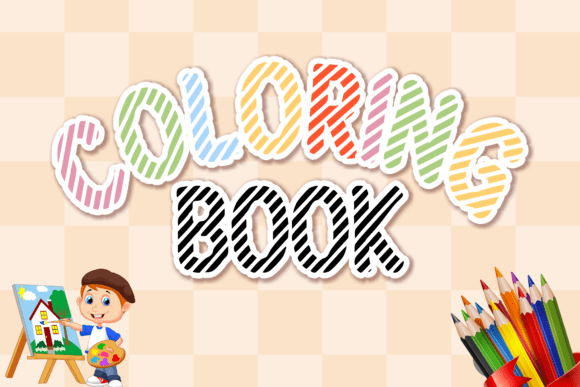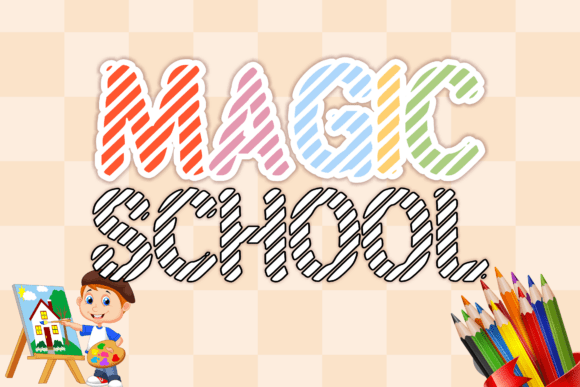
Unleash Your Creativity with the Kids Craft Font
Do you remember the feeling of rummaging through a box of crayons, markers, and paints as a child, eager to bring your imagination to life? The thrill of creating something entirely new and unique was exhilarating. As a designer, you can recapture that same sense of wonder and excitement with the Kids Craft Font.
This charming font is designed to add a playful touch to your projects, with its striped style and vibrant colors. Whether you’re working on a children’s book, a product label, or a t-shirt design, the Kids Craft Font offers endless possibilities for creativity and self-expression. Its versatility and aesthetic appeal make it a valuable addition to any designer’s toolkit, allowing you to add a pop of color and whimsy to your designs.
Kids Craft Font Key Features
- Unique Characteristics: The Kids Craft Font is designed to resemble children’s handwriting, making it perfect for educational materials, kids’ books, and other projects that require a playful, informal feel.
- Stylistic Sets: Includes a range of stylistic sets that allow designers to add extra flair and personality to their text, such as swashes, flourishes, and alternate letterforms.
Designer Review: Kids Craft Font
Overall, I think the Kids Craft Font is a sweet addition to any designer’s toolkit. Here’s what I like about it:
- ✨ The font has a playful, hand-drawn feel that’s perfect for children’s books, educational materials, and other projects that require a lighthearted tone.
- ✨ The font is highly customizable, with a range of weights and styles to choose from, making it easy to adapt to different design needs.
- ✨ The font is well-behaved and easy to use, with a consistent spacing and letterform design that makes it a joy to work with.
- ⚠️ The font may not be suitable for formal or professional projects, as its playful feel may come across as unprofessional or immature.
- ⚠️ The font’s hand-drawn feel may not be suitable for projects that require precision or technical accuracy, such as instructional materials or technical documentation.
Overall, I think the Kids Craft Font is a great choice for designers who need a fun and engaging font for children’s projects or other lighthearted designs. Just be aware of its limitations, and use it thoughtfully to get the best results.
The Kids Craft Font is perfect for creating playful and whimsical designs, such as:
- Children’s party invitations
- Education materials
To get the most out of the Kids Craft Font, try combining it with other design elements, such as:
- Colorful illustrations
- Fun graphics
- Playful textures
Alternatives to Kids Craft Font
Great Vibes is a playful, handwritten font that is perfect for adding a touch of whimsy to designs. It’s great for use in children’s books, party invitations, and other creative projects. Compared to Kids Craft Font, Great Vibes has a more relaxed, casual feel that works well for a wide range of designs.
Alex Brush is a elegant, handwritten font that is perfect for use in invitations, stationery, and other formal designs. It has a more refined, sophisticated feel compared to Kids Craft Font, making it ideal for use in high-end designs. However, it may not be the best choice for designs that require a more playful, childlike feel.
Carolyna Pro is a modern, handwritten font that is perfect for use in designs that require a touch of elegance and sophistication. It’s great for use in branding, advertising, and other commercial designs. Compared to Kids Craft Font, Carolyna Pro has a more refined, polished feel that works well for a wide range of designs.